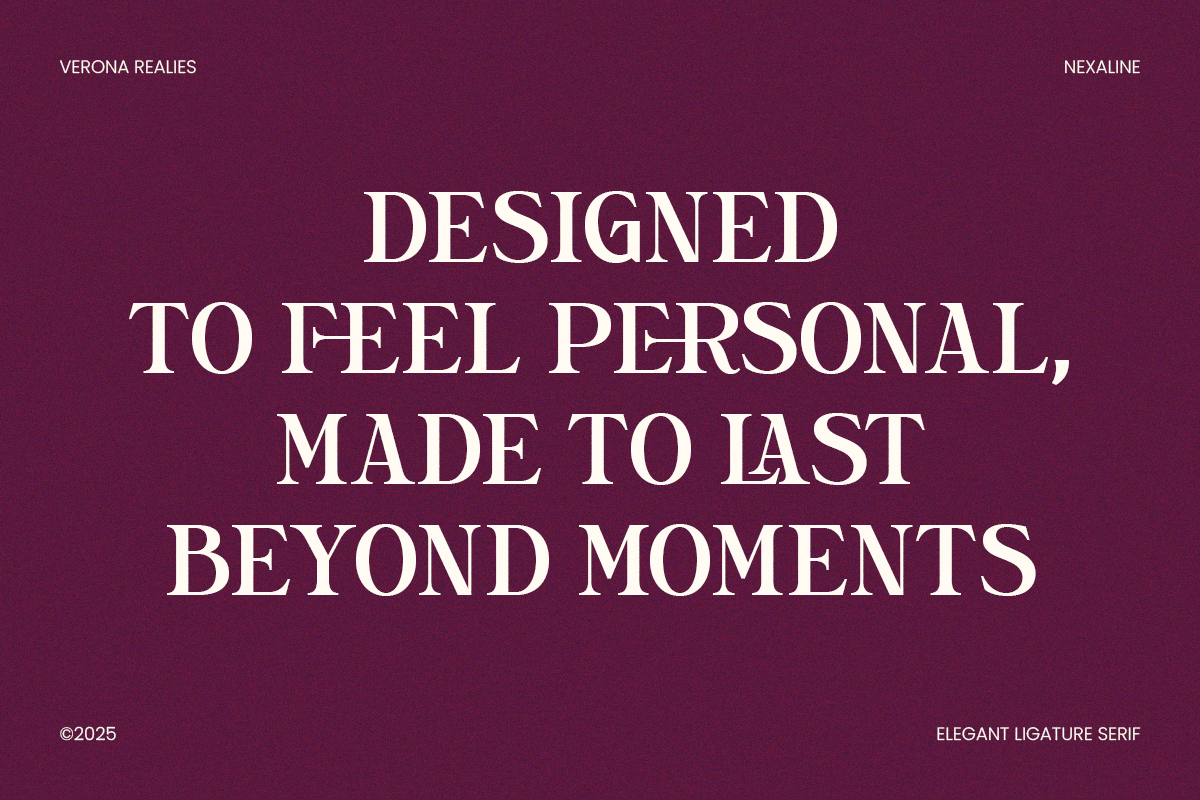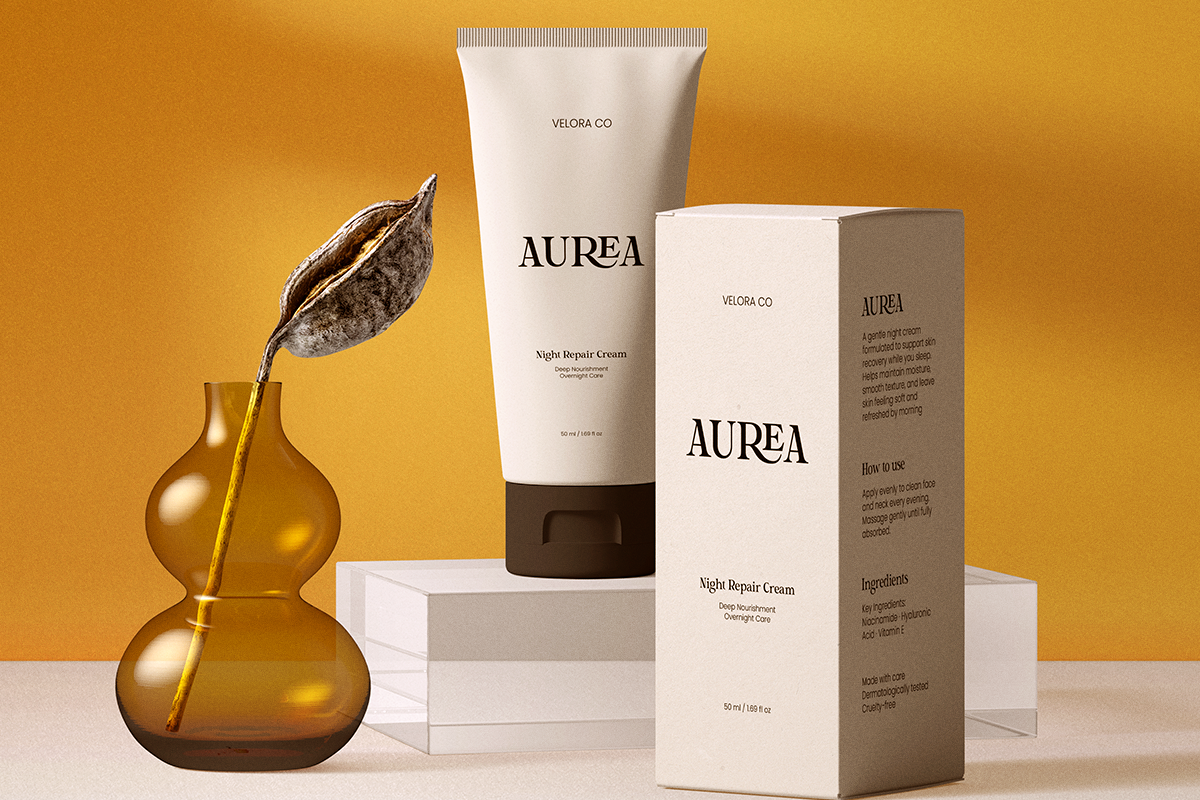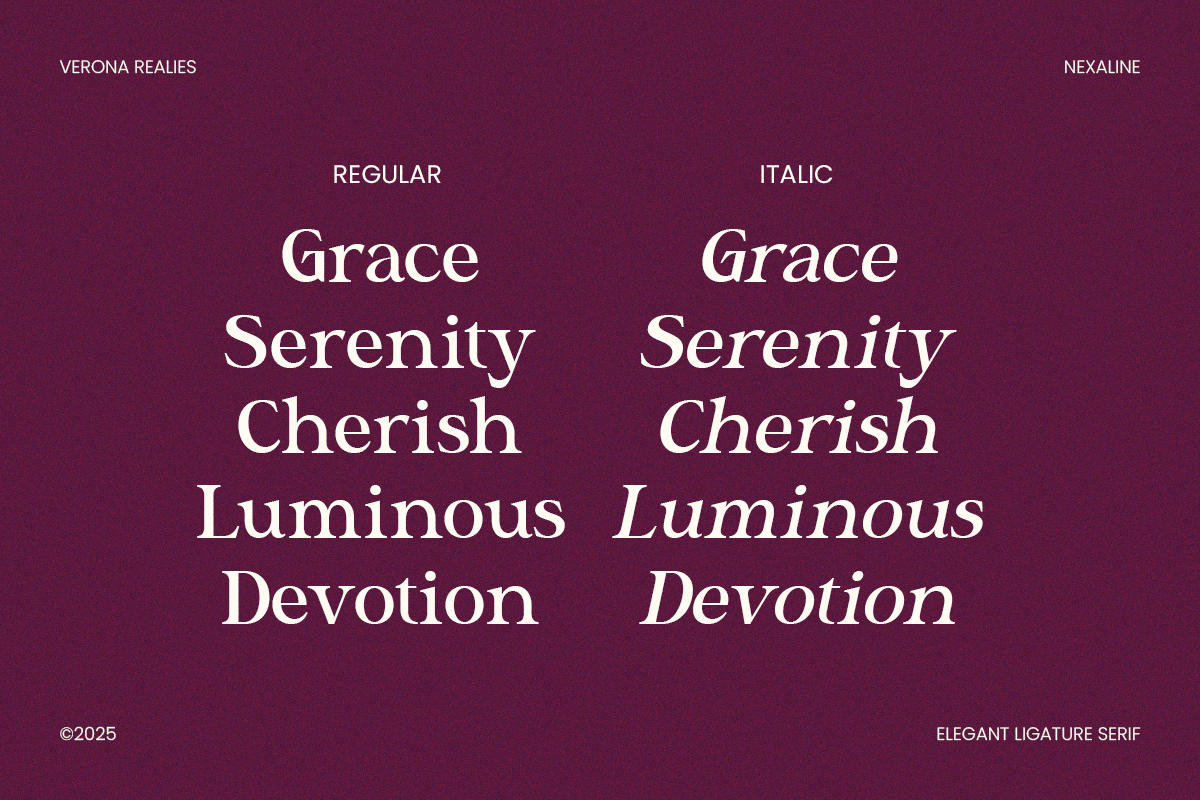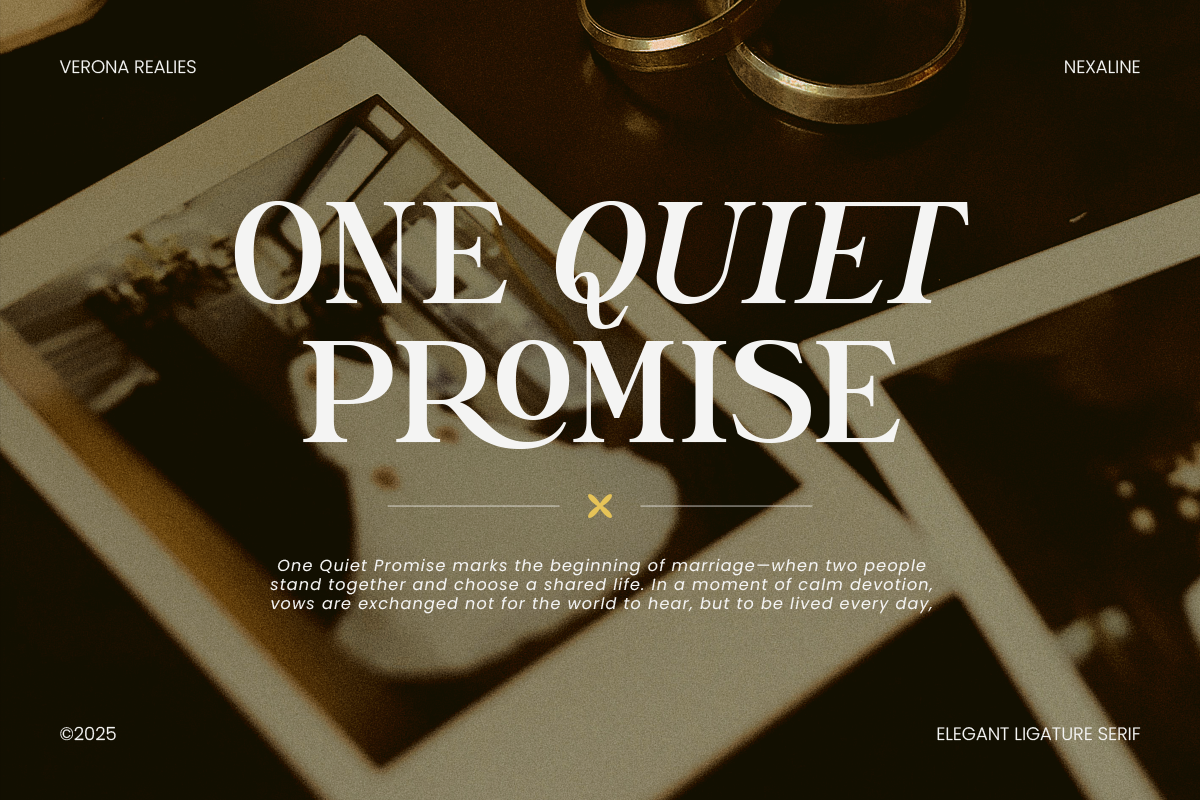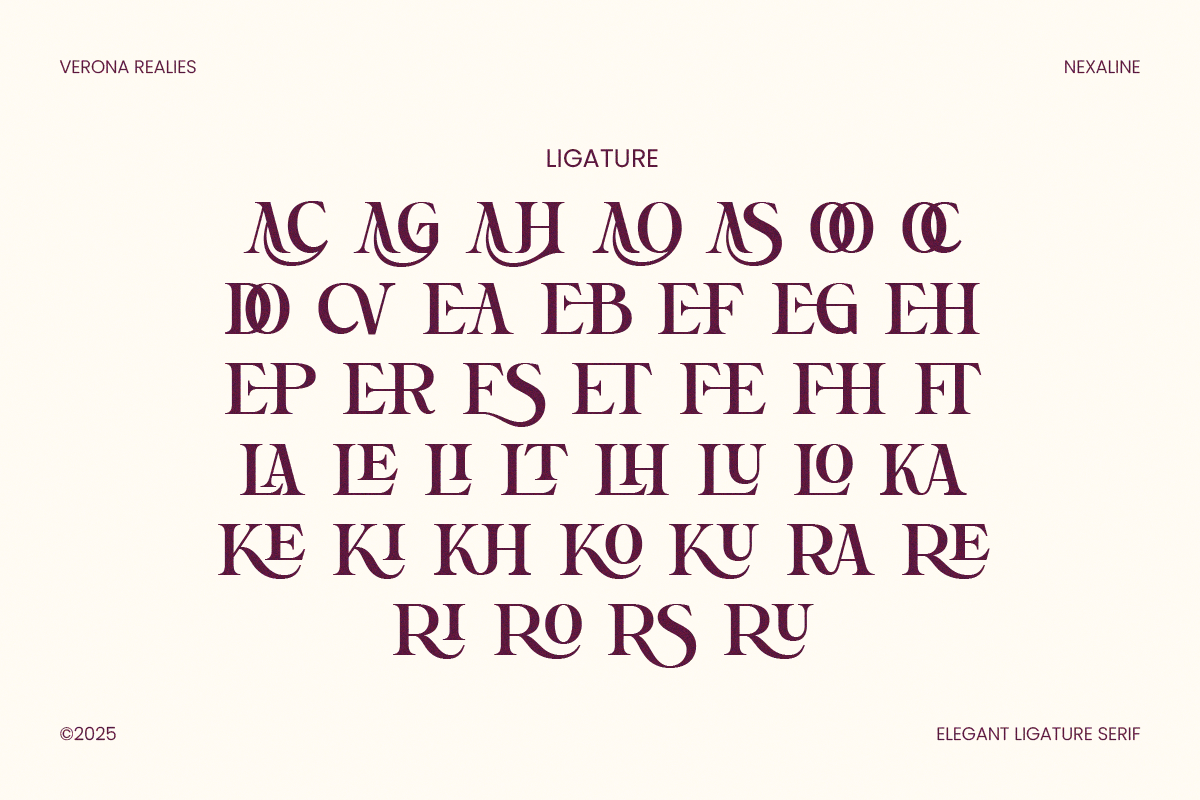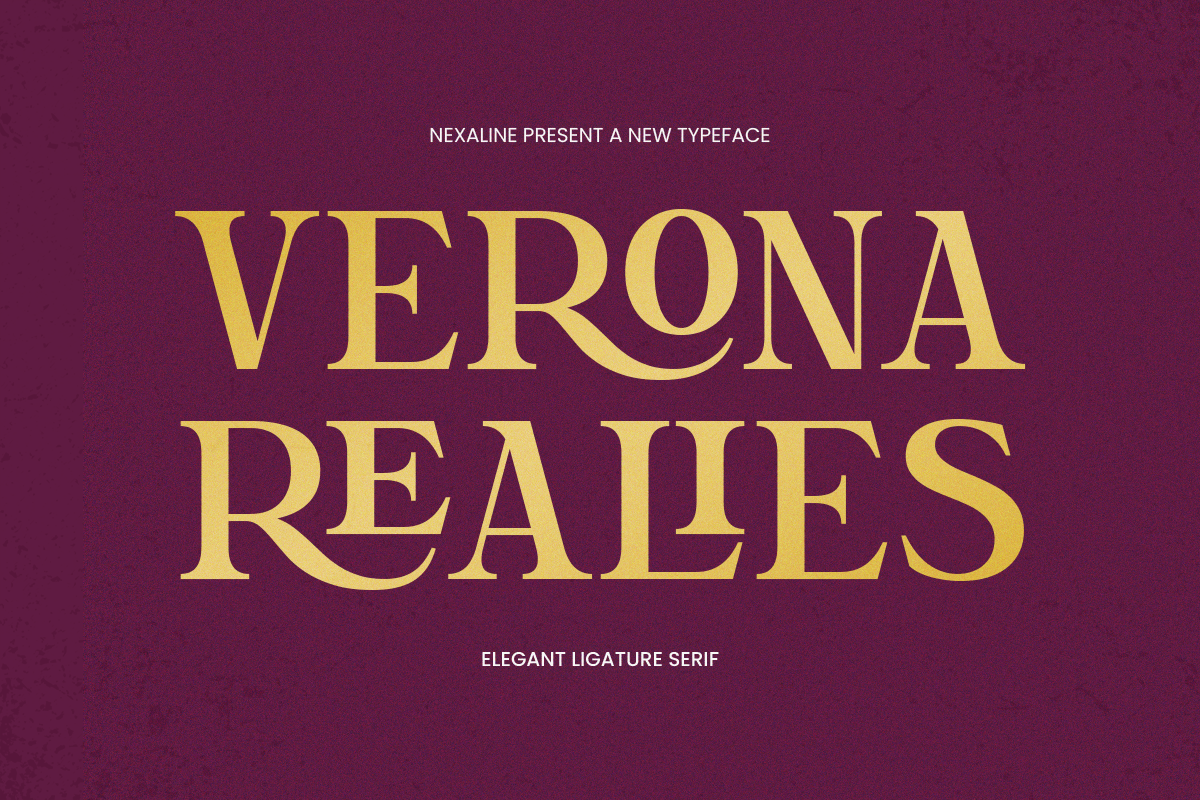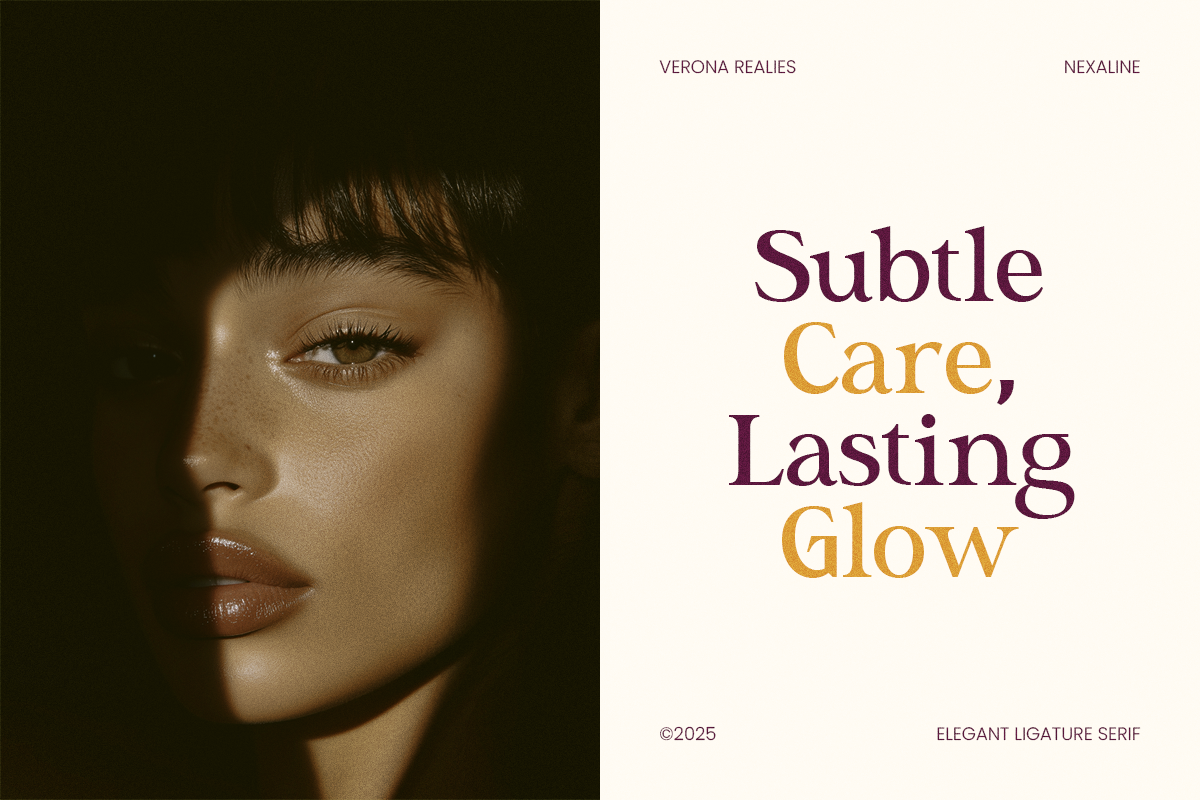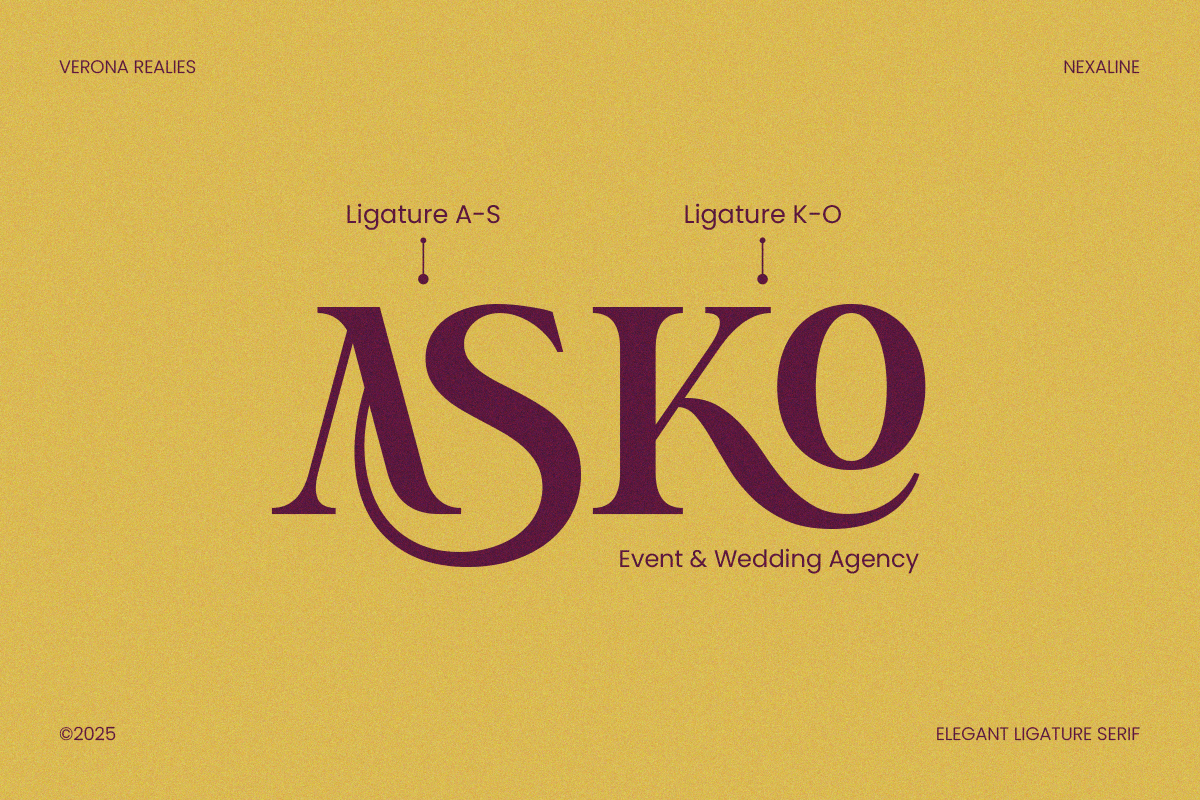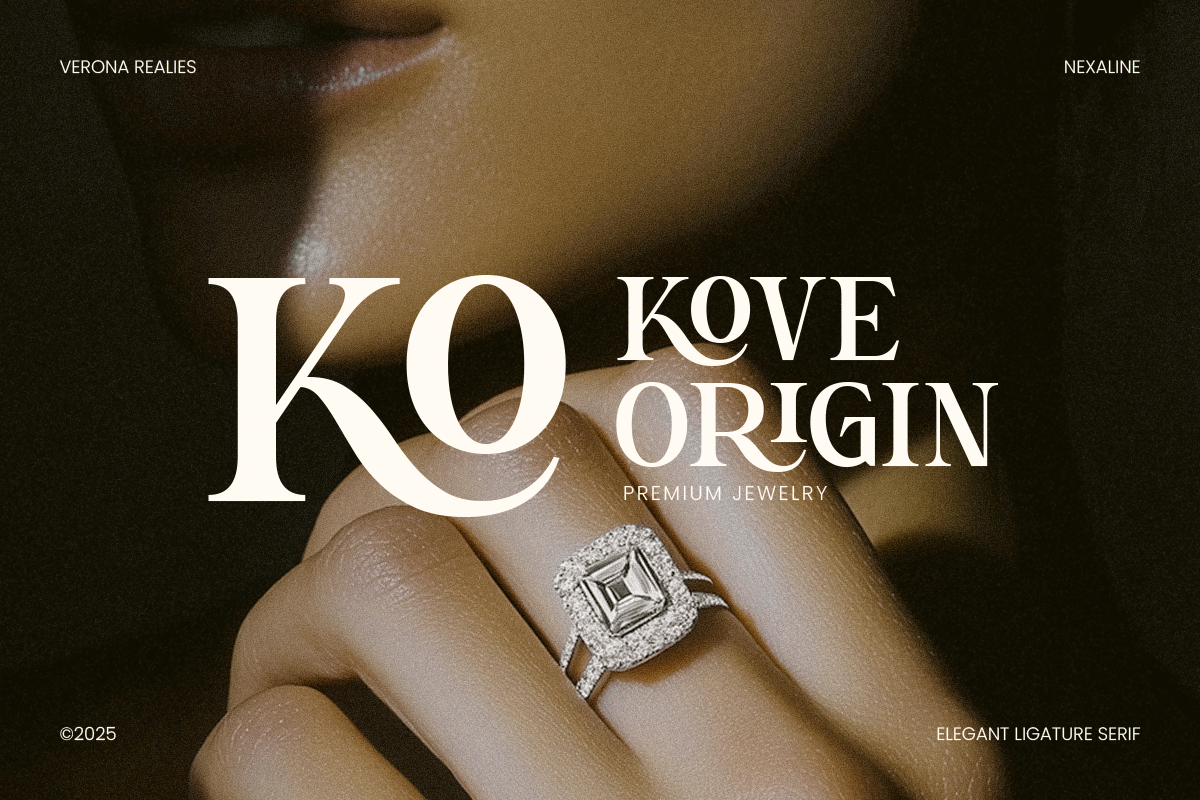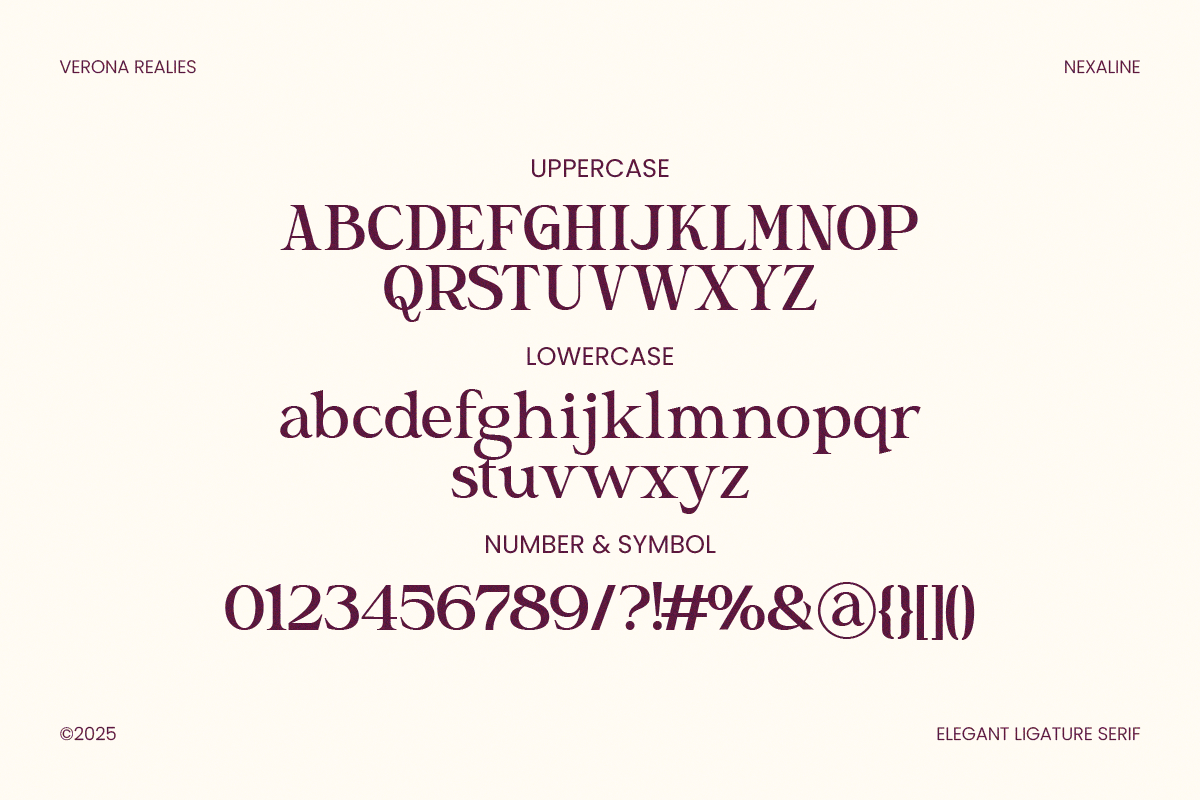
Verona Realies - Elegant Serif Font
Verona Realies — Elegant Ligature Serif is a refined display serif typeface designed for sophisticated visual identity and expressive typography.
With graceful ligatures, elegant serif details, and balanced letter proportions, Verona Realies delivers a refined typographic voice that emphasizes beauty, character, and visual harmony.
Designed to highlight elegance without sacrificing clarity, this typeface combines decorative ligature forms with a classic serif foundation, making it suitable for branding projects that demand a distinctive and luxurious typographic presence.
Thoughtful proportions and expressive detailing allow Verona Realies to remain elegant while visually distinctive. Whether used for luxury branding, editorial headlines, fashion graphics, or premium packaging, this typeface adds sophistication and timeless character to contemporary design projects.